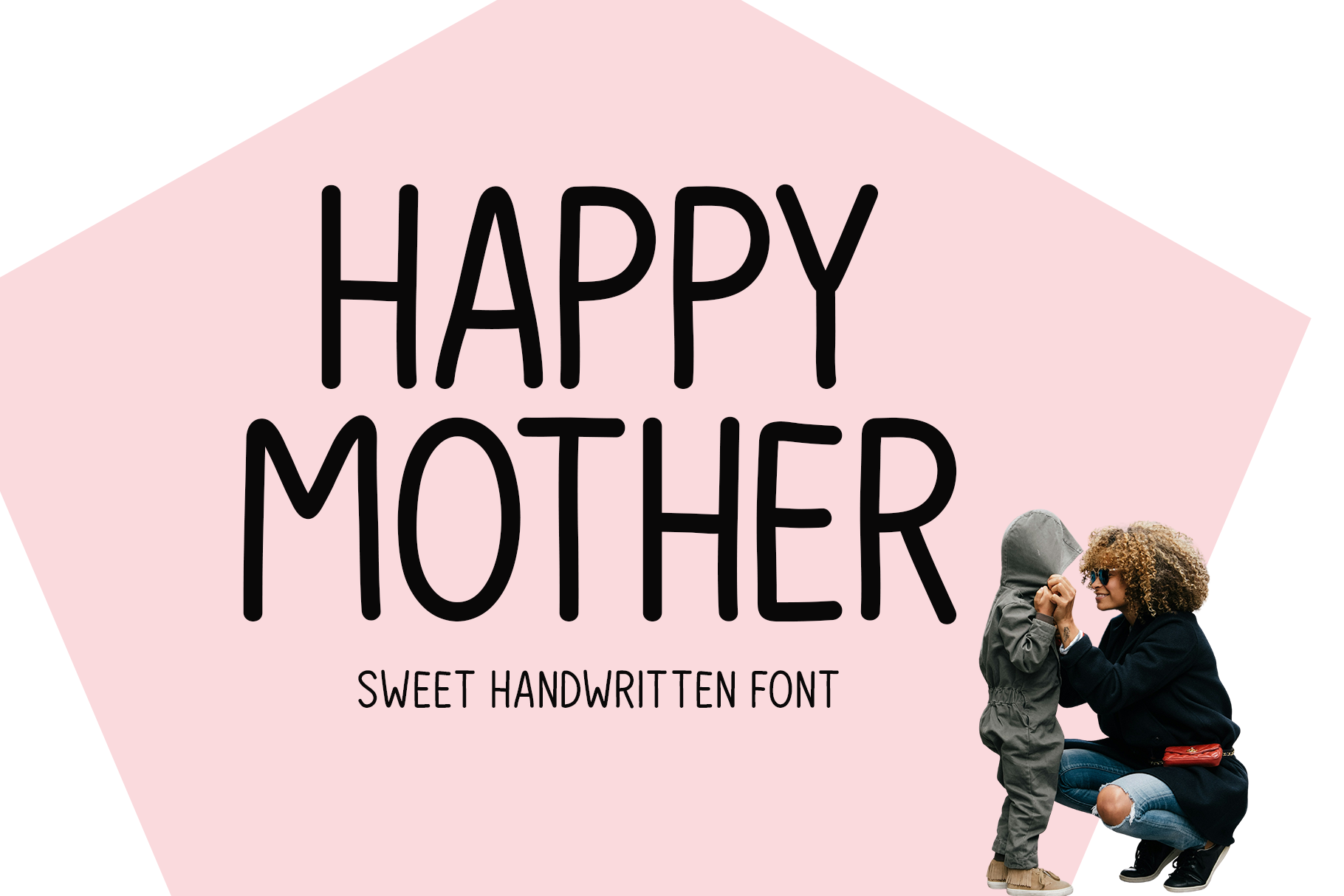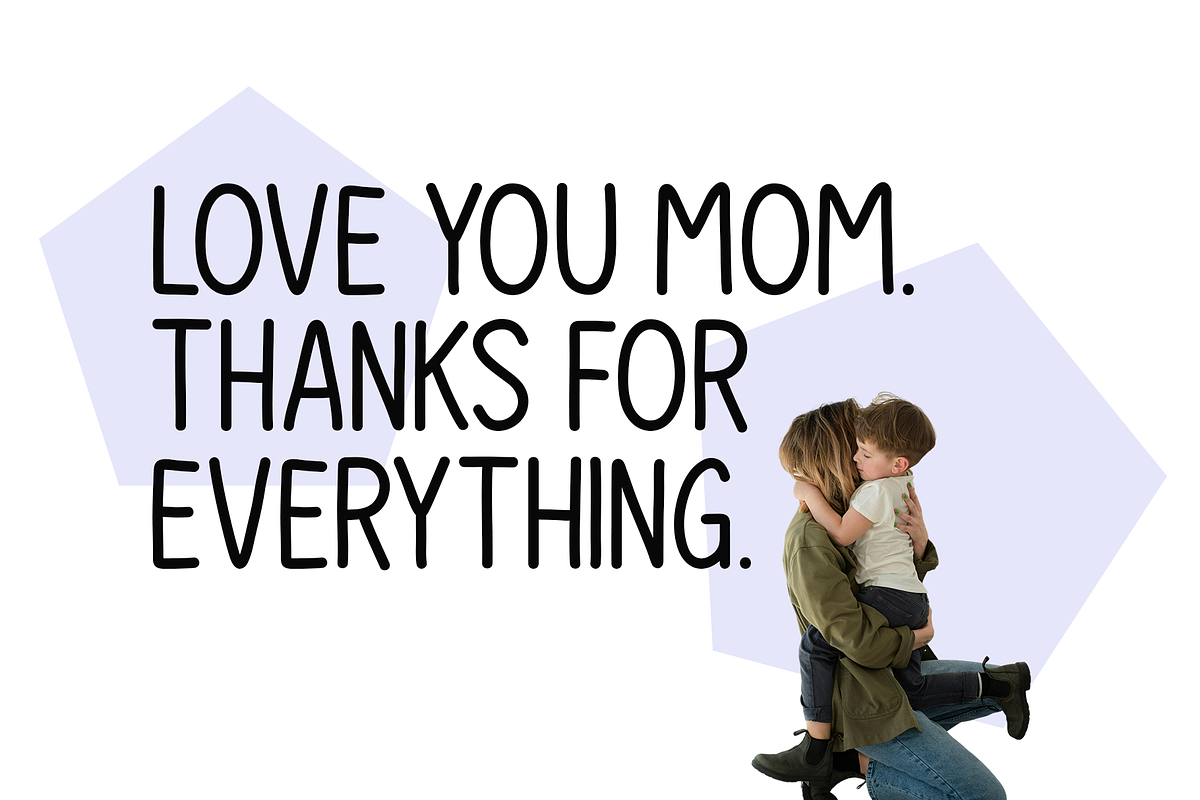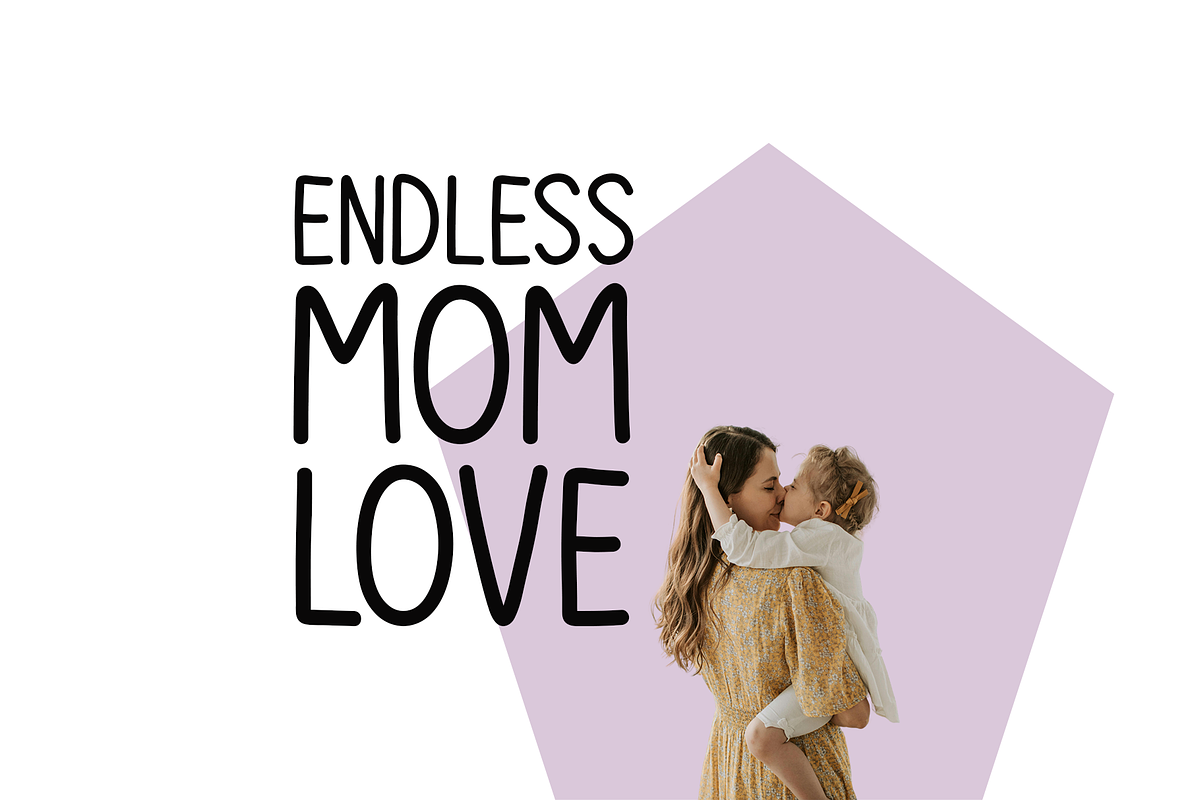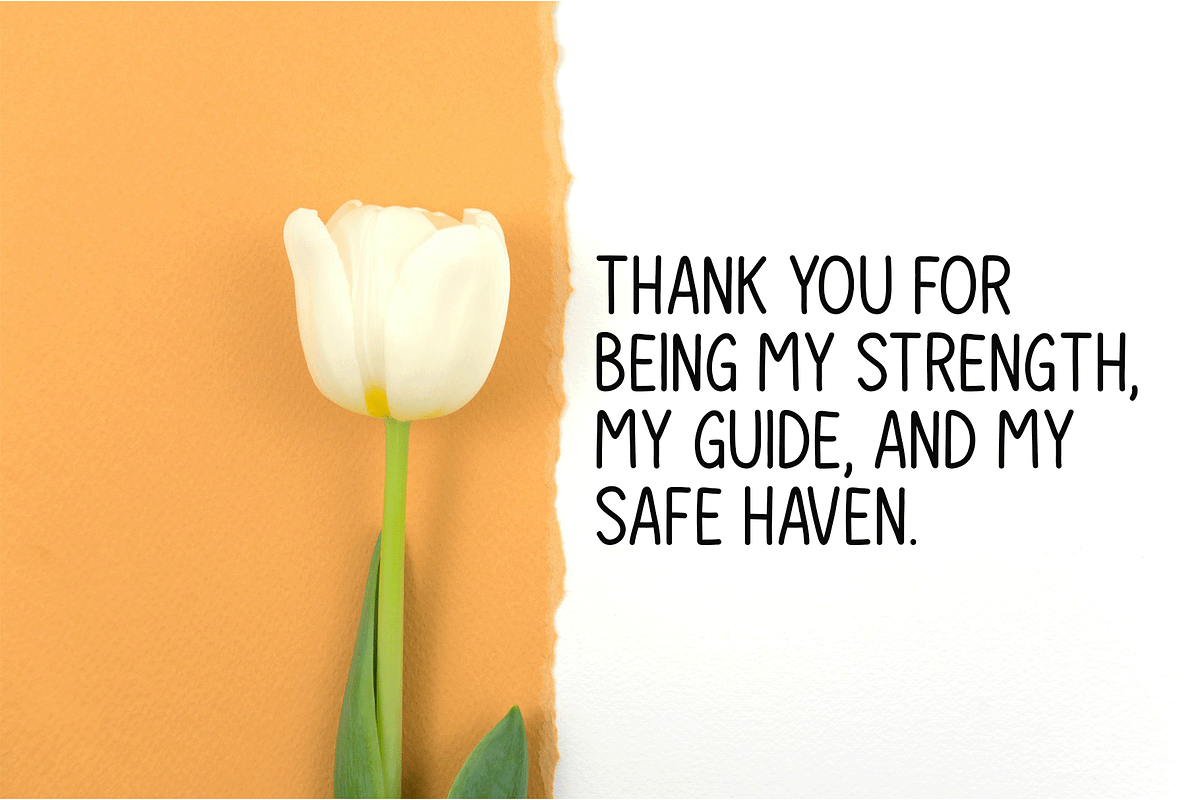
Happy Mother Typeface
Introducing Happy Mother!
Happy Mother is a delightful handwritten font that effortlessly combines fun and sophistication. Perfect for creating unique logos, t-shirt designs, invitations, website headers, flyers, social media graphics, and print materials. Its organic, custom feel makes it a great choice for projects that need a distinctive, hand-crafted touch.